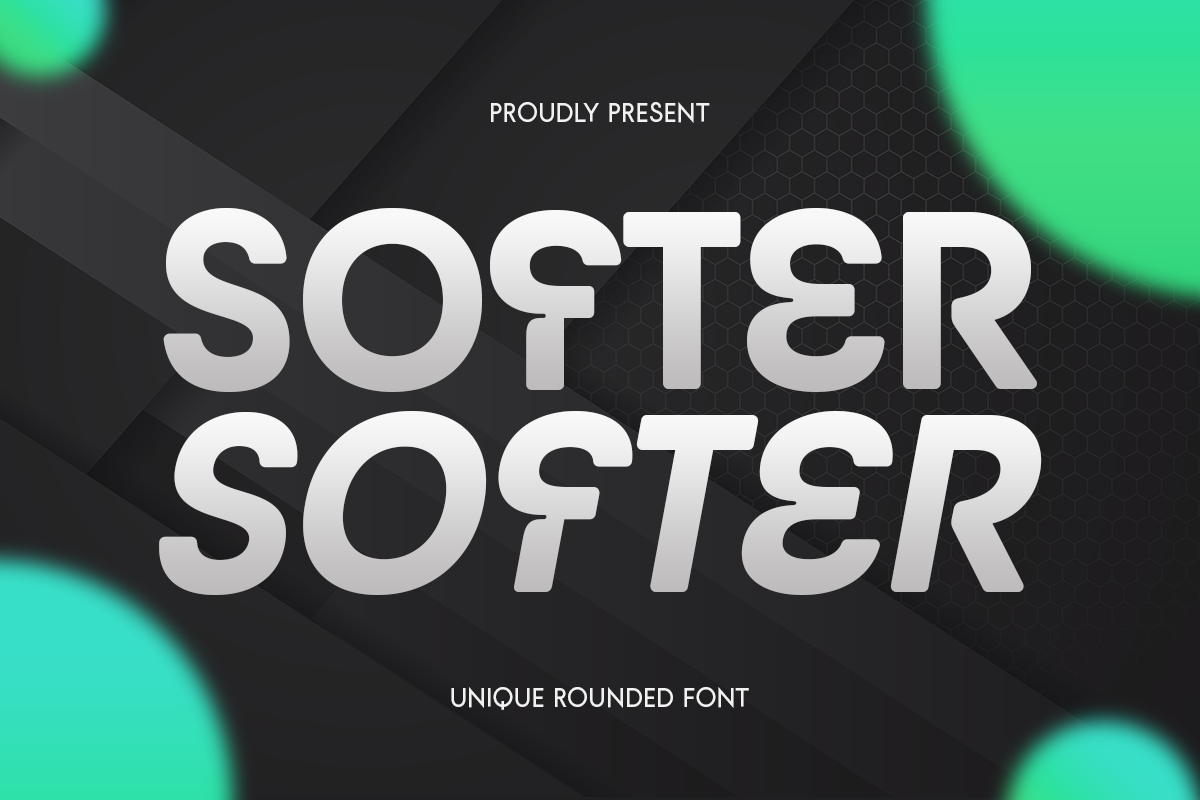
Best Rounded Fonts for Friendly Branding
Discover the best rounded fonts for friendly branding, logos, and modern design. Explore modern rounded typefaces and Sensatype font alternatives.
Rounded fonts have become one of the most popular typography styles for modern branding. With their smooth curves and soft corners, rounded typefaces create a visual tone that feels welcoming, friendly, and easy to approach. Because they avoid sharp edges and aggressive shapes, rounded fonts naturally communicate warmth and accessibility.
For brands that want to appear more human and relatable, typography plays a major role. Rounded fonts help soften the overall visual identity and make messaging feel more approachable. This is why many startups, lifestyle brands, educational platforms, food products, and digital services use rounded typography in their branding systems.
In this guide, we explore the best rounded fonts for friendly branding, what makes rounded fonts effective, and which Sensatype Studio font alternatives can help brands build a memorable and approachable identity.
Why Rounded Fonts Feel Friendly
Typography shapes how people emotionally interpret a brand. Rounded fonts tend to create positive first impressions because the letterforms mimic natural curves rather than rigid geometric edges.
Several characteristics make rounded fonts feel friendlier than traditional typefaces.
Soft Visual Rhythm
Rounded fonts remove harsh corners and replace them with smooth transitions. This makes the typography feel lighter and easier to read.
Psychological Comfort
Humans naturally associate curved shapes with safety and warmth. Rounded forms feel more organic and less mechanical.
Approachability
Brands using rounded fonts often appear more open, playful, and inclusive. This helps reduce the sense of distance between the brand and its audience. Because of these qualities, rounded typography works particularly well for brands that want to appear friendly, modern, and emotionally engaging.
Best Rounded Fonts for Friendly Branding
Below are several rounded fonts that work particularly well for modern branding projects.
Softer – Unique Rounded Font
Softer is a modern rounded font that blends smooth curves with futuristic design. The letterforms maintain a sleek structure while still feeling approachable. Its rounded geometry creates a clean and modern personality while maintaining excellent readability.
Rythme – Rounded Condensed Branding Logo Font
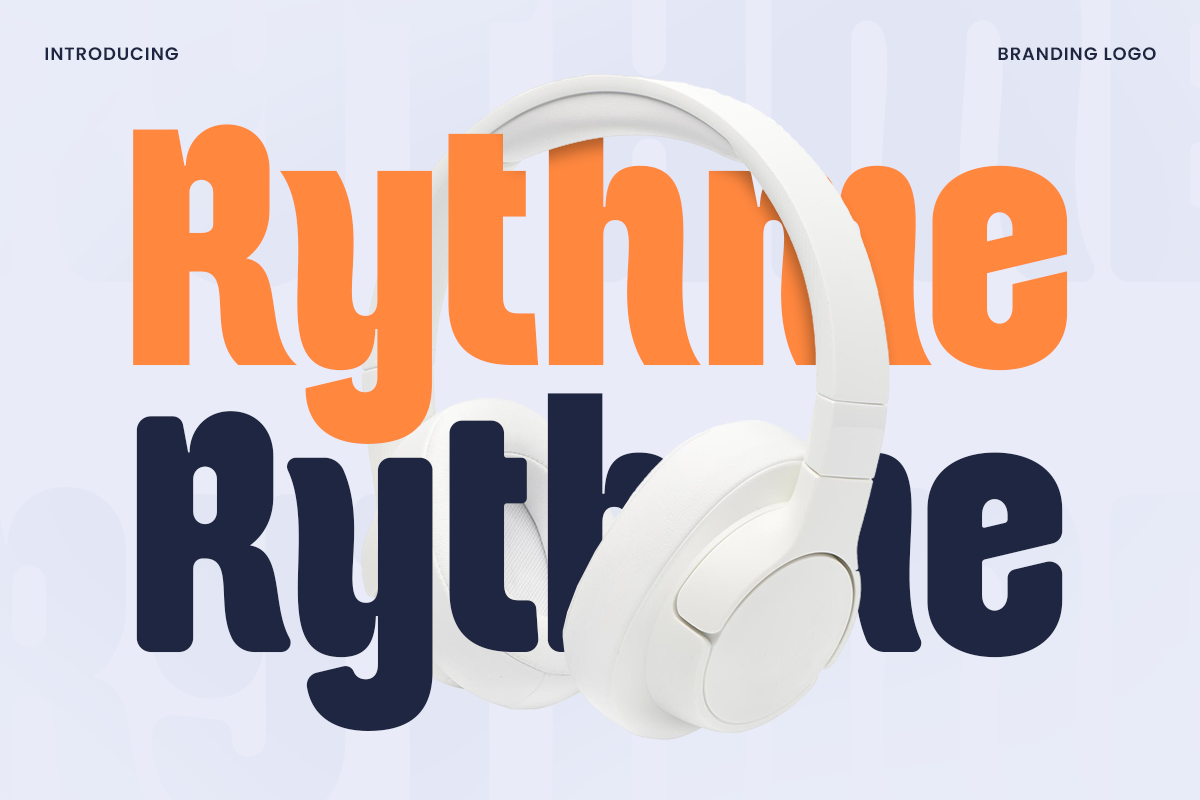
Rythme is a condensed rounded font designed for strong branding and logo design. The compact letterforms make it ideal for creating distinctive wordmarks. The rounded shapes soften the condensed structure, producing a balance between professional and friendly.
Gilga – Modern Minimal Rounded Font
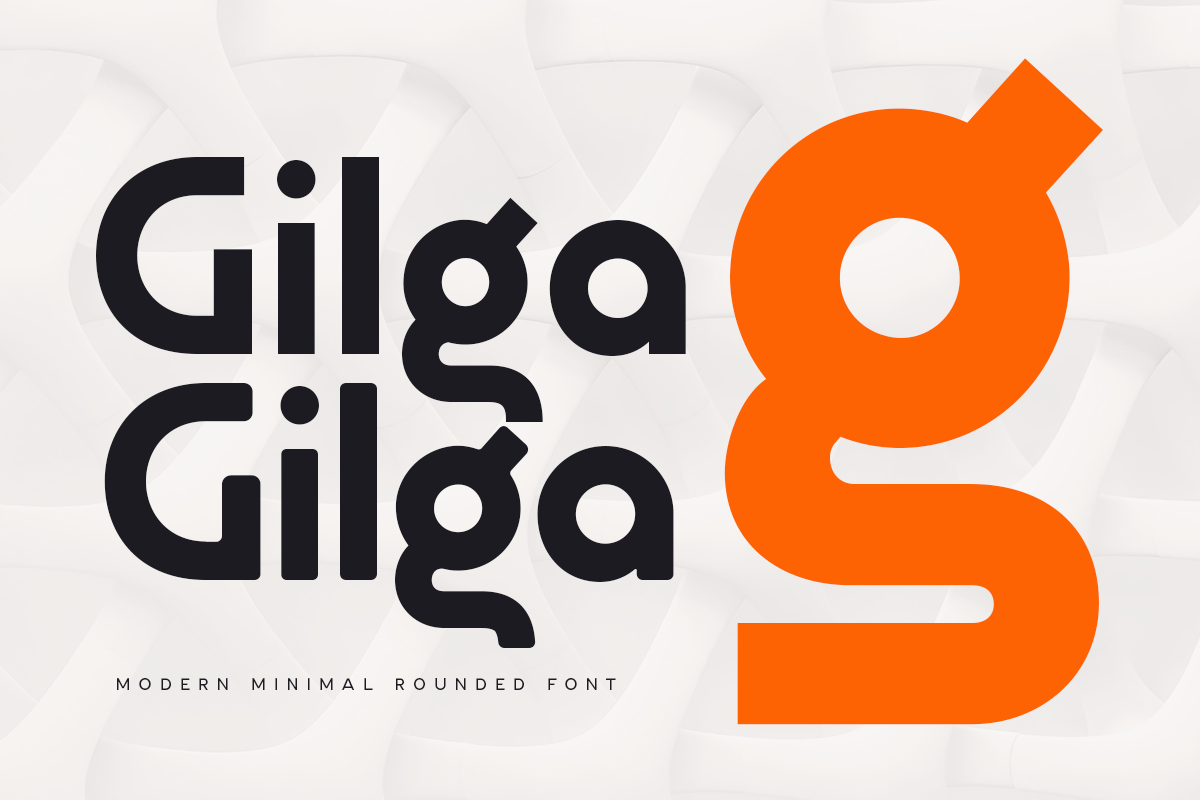
Gilga is a minimalist rounded sans serif font built on geometric principles. Its clean construction makes it highly versatile for modern design systems. The simplicity of Gilga allows it to adapt to many visual styles while maintaining a soft and approachable tone.
Techon – Geometric Rounded Branding Font
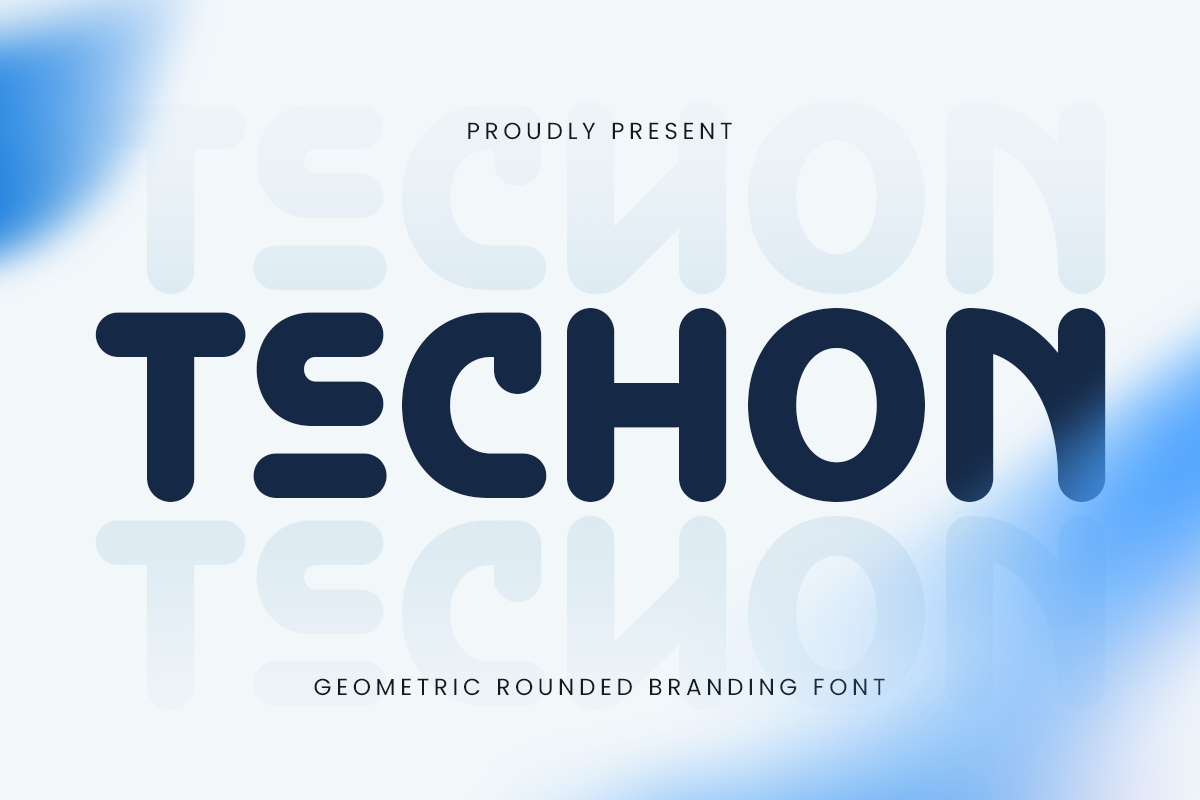
Techon combines geometric precision with rounded terminals, creating a typeface that feels both modern and welcoming. Techon demonstrates how rounded fonts can still feel professional and structured while maintaining a friendly personality.
Algo – Display Rounded Logo Font
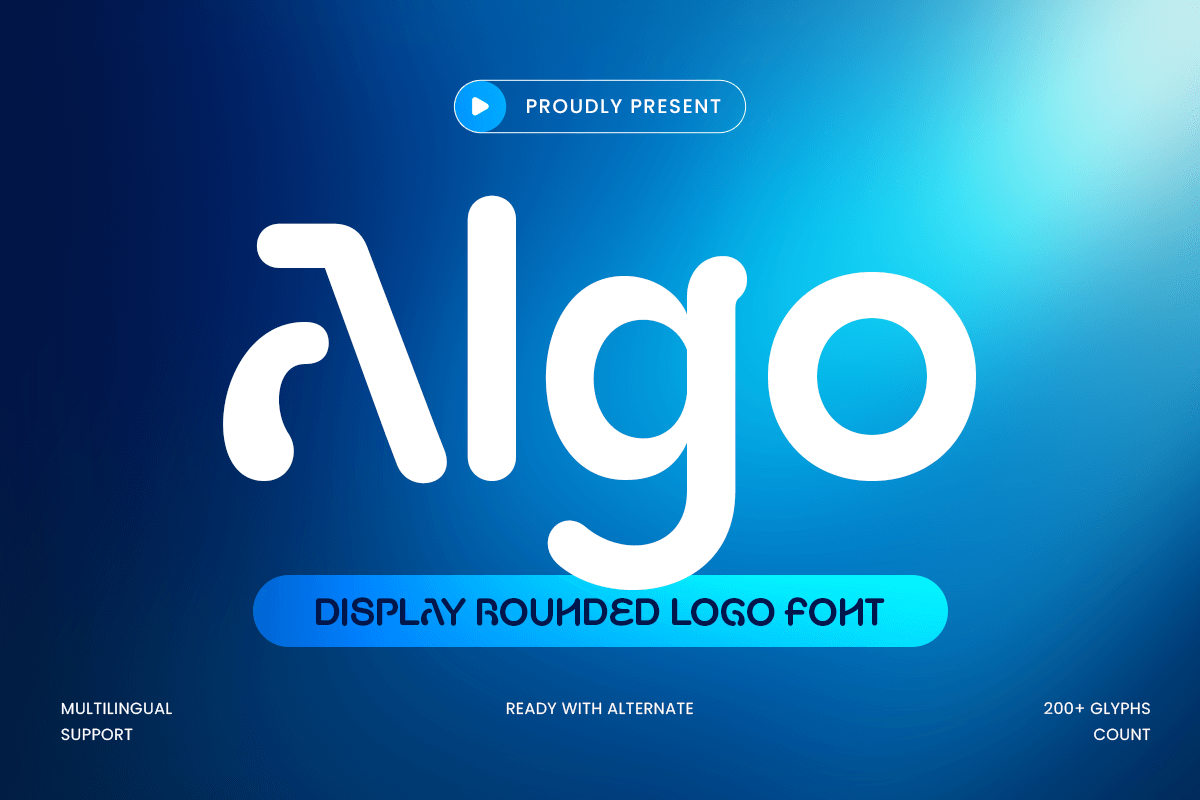
Algo is a display rounded font designed for strong visual impact. Its bold shapes create a playful yet confident character. Because of its bold rounded structure, Algo creates an instantly recognizable visual presence.
When to Use Rounded Fonts in Branding
Rounded fonts are particularly effective when brands want to communicate warmth and accessibility. They work well in industries that benefit from emotional connection.
Technology Startups
Food and Beverage Brands
Children's Products
Wellness and Lifestyle Brands
Education Platforms
Rounded fonts are one of the most effective typography styles for creating friendly and approachable branding. Their smooth curves, soft corners, and relaxed visual rhythm help brands feel more welcoming and relatable.
When used strategically, rounded typography can strengthen a brand identity by balancing personality with readability. Whether used in logos, packaging, websites, or marketing materials, the right rounded font helps communicate warmth, openness, and modern design.
Choosing the right rounded font is not only a design decision. It is a strategic branding choice that shapes how people emotionally connect with your brand.